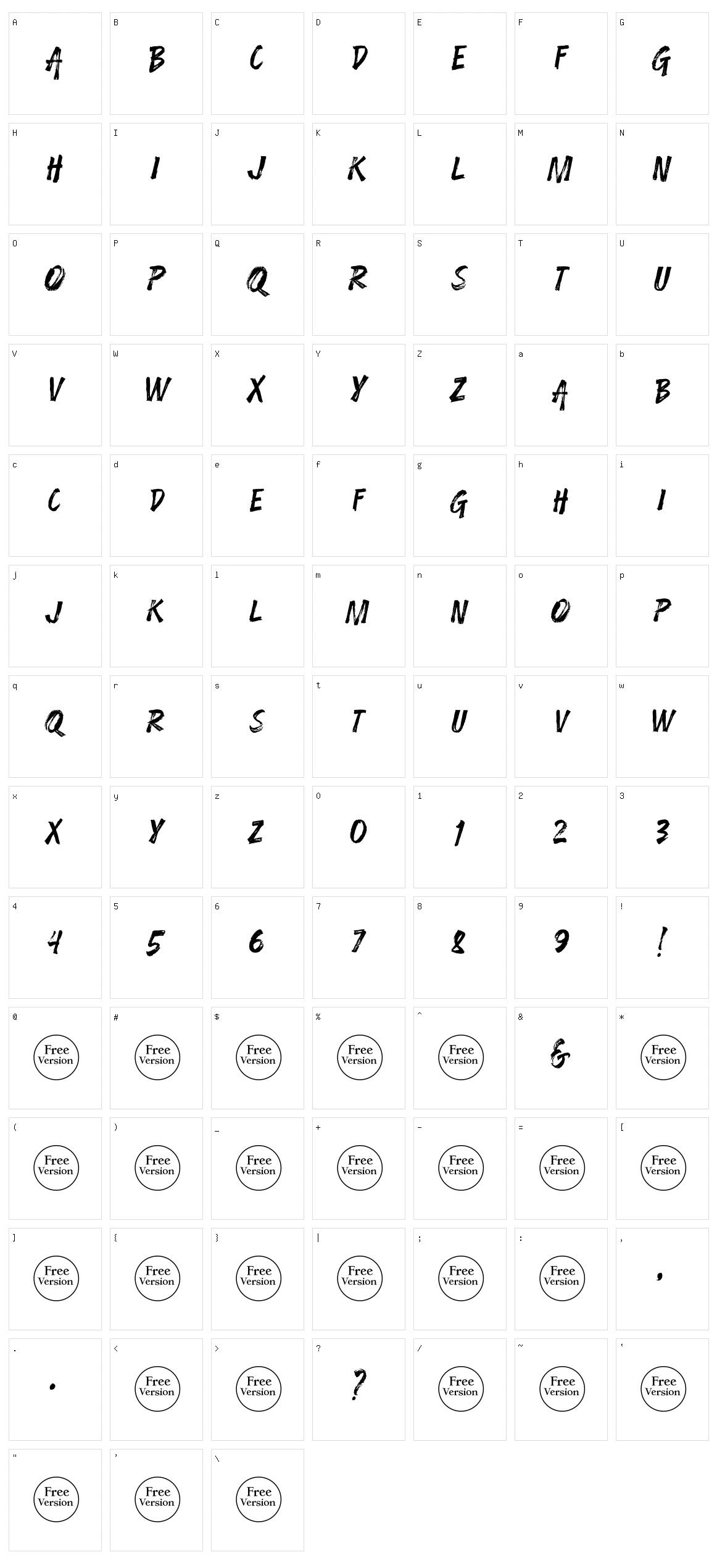
The free font Hey Jack is carefully designed by Typefactoryco, showcasing a thoughtful balance of creativity and usability and falls under the Script font style. When you download the ZIP file, it contains only 476.15 KB of font files, making it lightweight and quick to download. Please review the license details below to understand permitted usage and distribution rights. If license information is not available, we recommend using this font for personal projects only or contacting the author directly for commercial usage permissions.